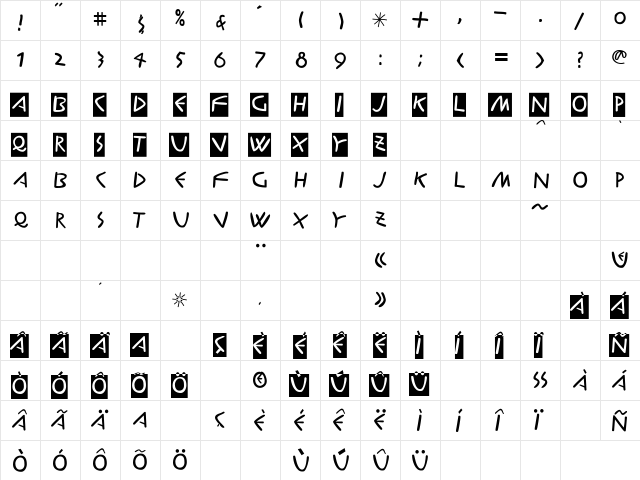
AIAlphaKid Plain
Design Context for AIAlphaKid Typeface
AIAlphaKid is a composed and adaptable typeface that performs quietly and consistently across a wide range of design contexts.